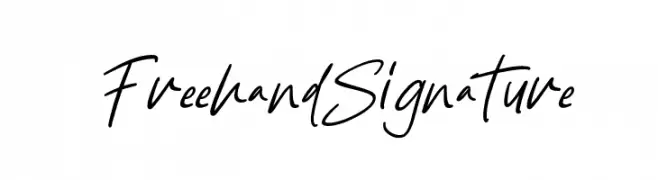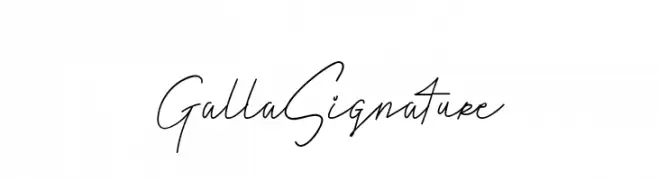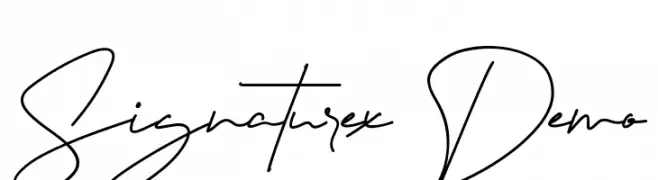
A sophisticated and elegant handwritten font with flowing, connected letterforms.
A casual, handwritten-style font with fluid, connected letters.
A casual, handwritten-style font with thin, fluid strokes.
A flowing, cursive font that mimics elegant handwriting.
( Fonts by Nirmana Visual )
A sophisticated, flowing script font with an elegant, handwritten style.
( Fonts by Jadatype )
A sophisticated and elegant handwritten font with fluid, continuous strokes.
( Fonts by Ferry Ardana Putra )
A sophisticated, elegant handwritten font with fluid, cursive strokes.
( Fonts by NihStudio )
A sophisticated cursive script font with a fluid, handwritten style.
( Fonts by Letterara )
A stylish, elegant handwritten font with fluid, continuous strokes.
( Fonts by Hasana Font )
A sophisticated, elegant handwritten font with fluid, graceful strokes.